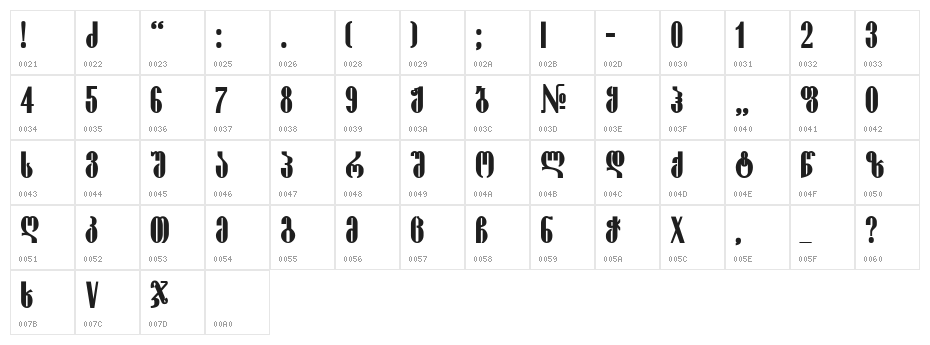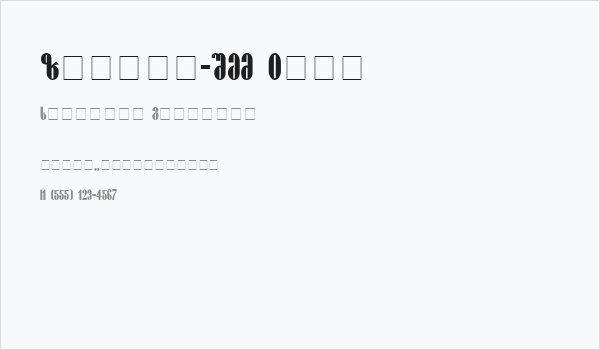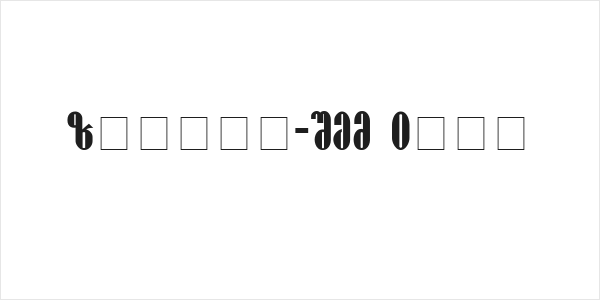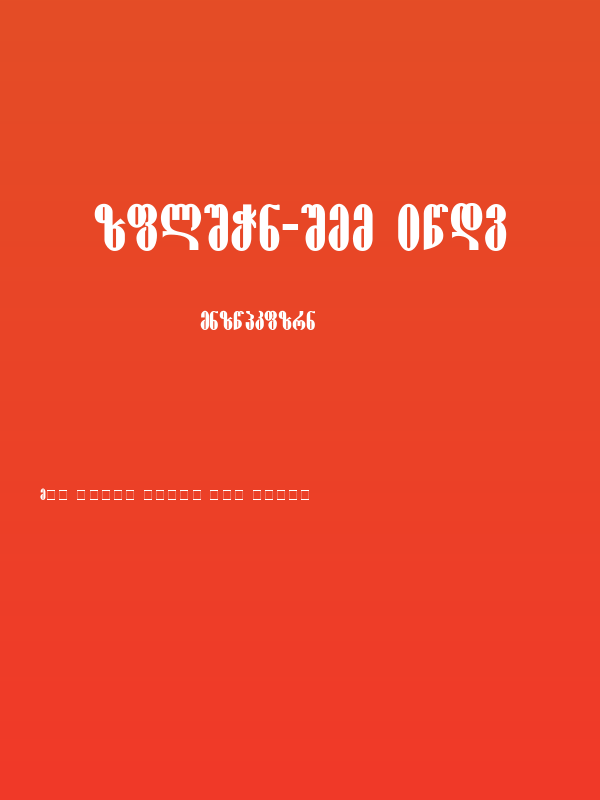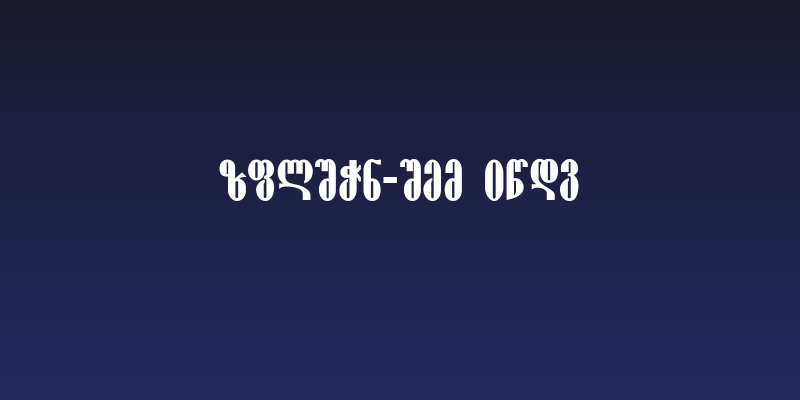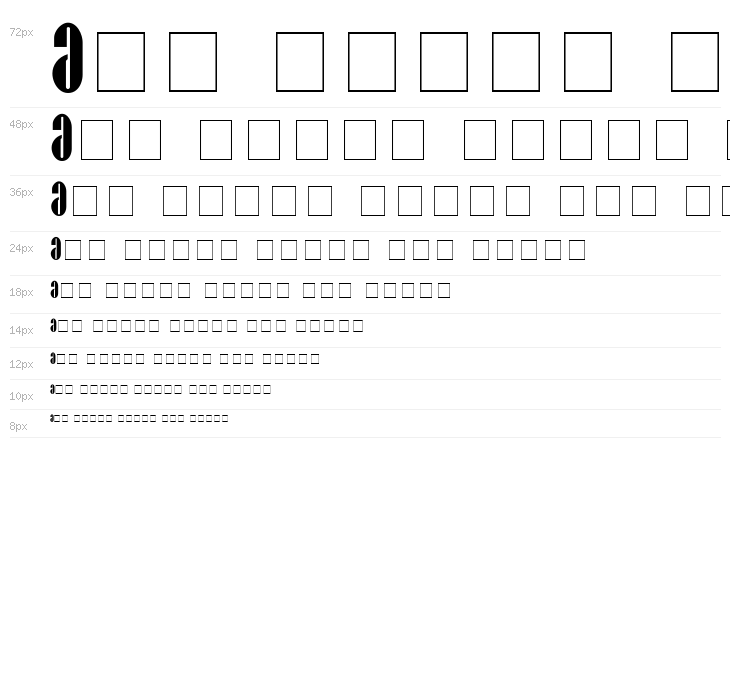
Pakizy-ITV Bold Font
Pakizy-ITV Bold Description
This font features bold, thick strokes with a high contrast between thick and thin lines, creating a dramatic and eye-catching appearance. The characters are uniquely styled with a decorative flair, incorporating elements that suggest a blend of traditional and modern design influences. The overall look is robust and impactful, making it suitable for attention-grabbing headlines or titles. The numbers and special characters maintain the same boldness and stylistic elements, ensuring consistency across all text elements.